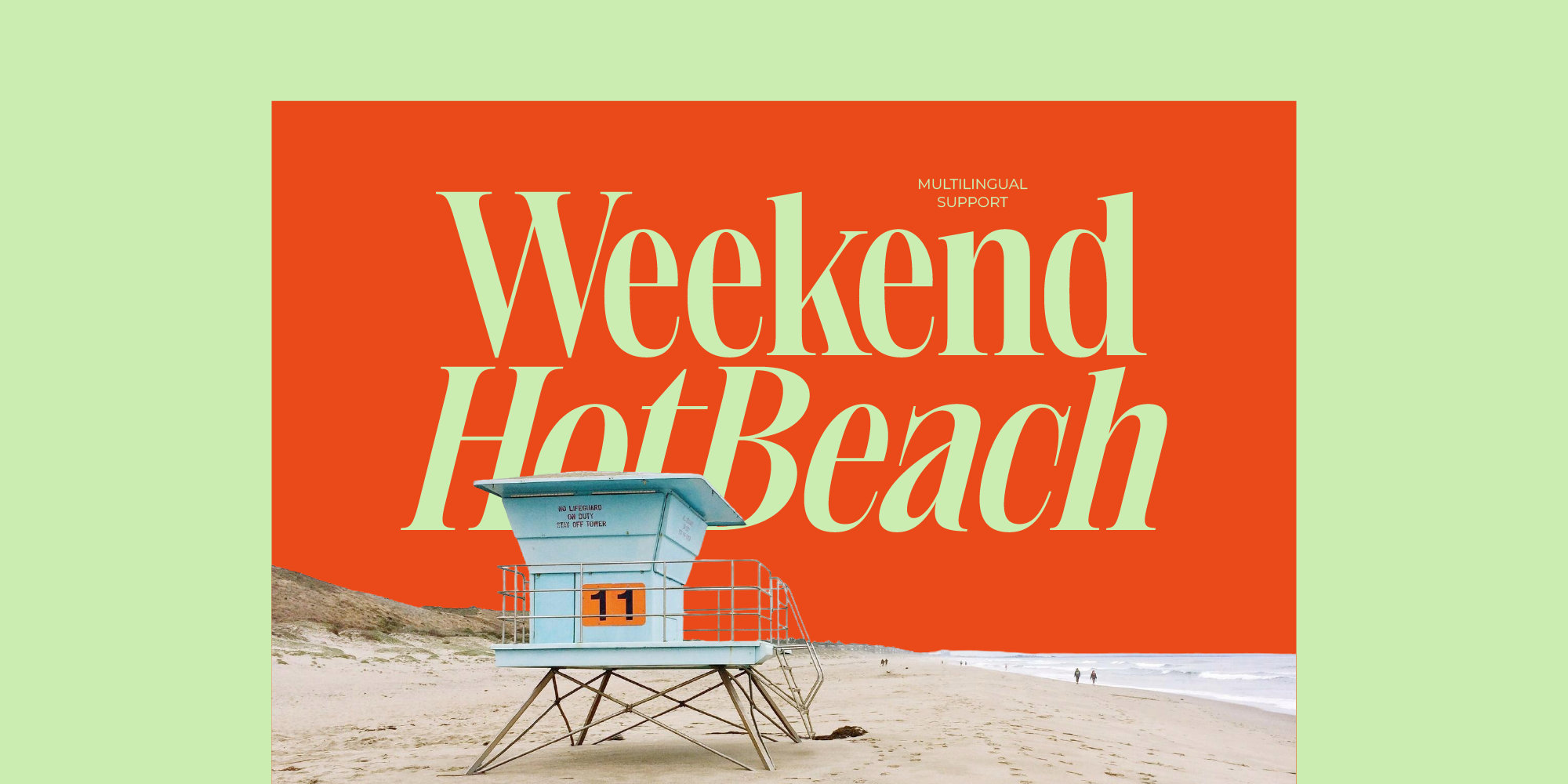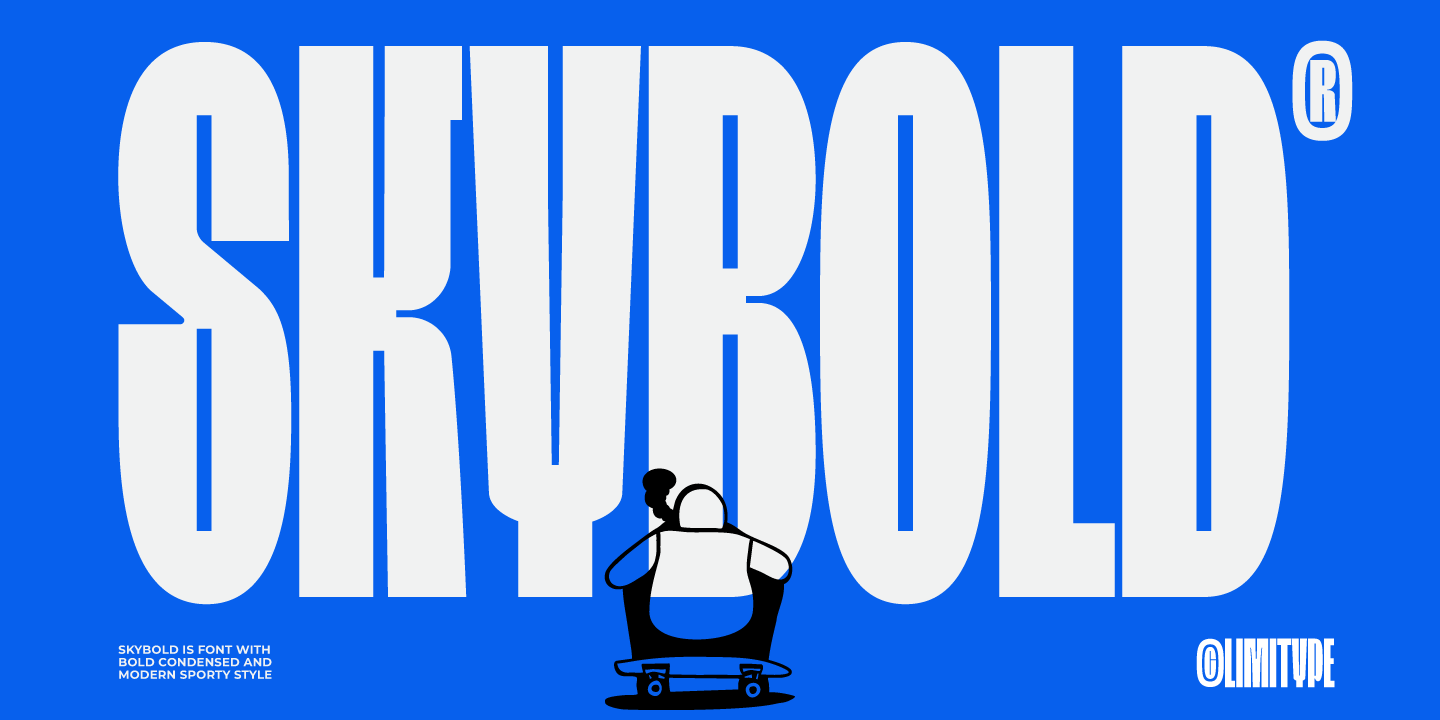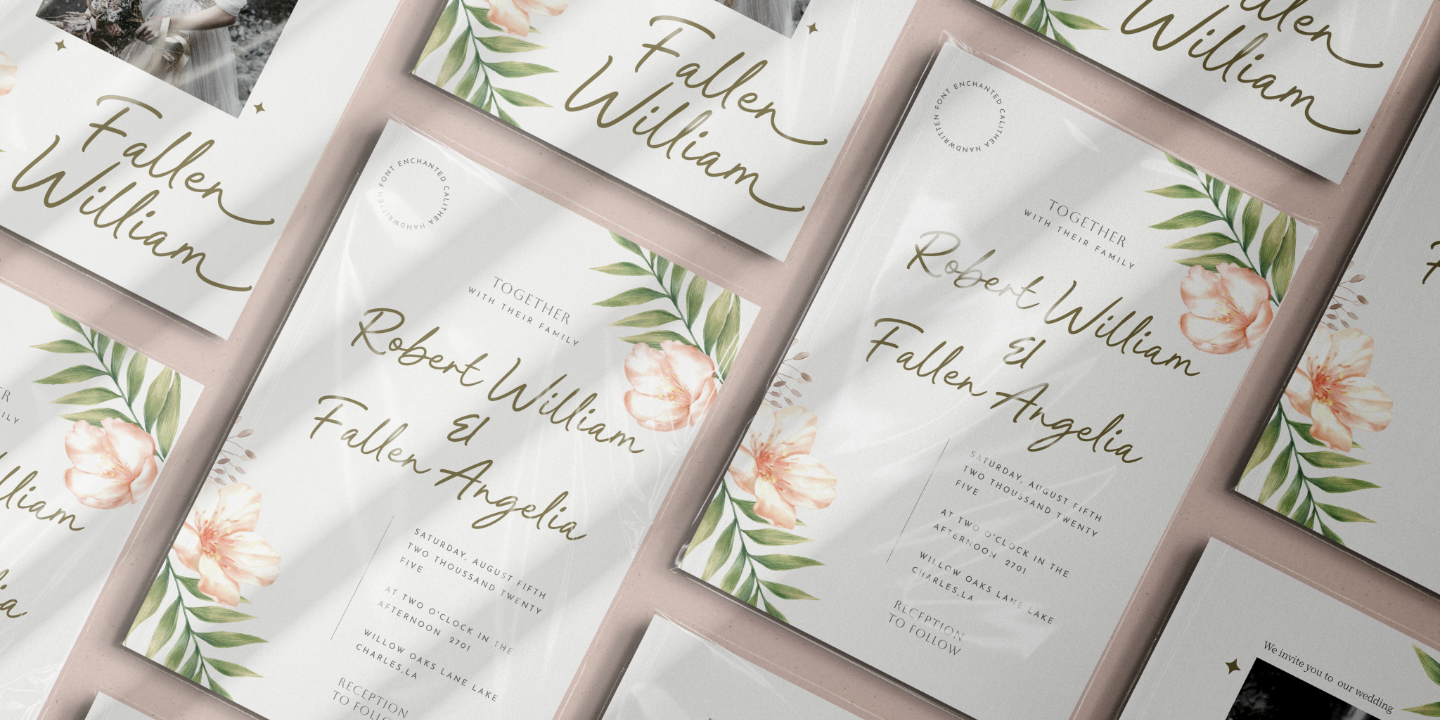
A closer look at the newest and most noteworthy typefaces in our library...
Delivery Feedback is a modern serif font from Timelesstype. This font is suitable for any projects such as: logos, branding projects, homeware designs, product packaging, mugs, quotes, posters, shopping bags, t-shirts, book covers, name card, invitation cards, greeting cards, label, photography, watermark, special events, and all your other luxury and beautiful projects that need a Luxury Serif taste. 2 fonts for $23 | |
This serif font is designed to bring together classic elegance and a relaxed modern feel within a single, harmonious type family. Its refined serif details and well-balanced letter proportions create a sense of elegance and sophistication, while fluid letter rhythms and soft, unrigid details make it feel friendly, casual, and easy to use across various design contexts. With a complete range of widths and slanted styles, this font offers high flexibility for building dynamic visual hierarchies—from sophisticated editorial layouts to modern, approachable branding. Its consistency across both print and digital media makes it an ideal choice for designers who value aesthetics as much as functionality. 7 fonts for $23 | |
Sadelik is a soft and joyful display typeface inspired by the innocence and imagination of childhood. With its curvy and hand-drawn shapes, Sadelik brings a warm, friendly tone to any design it touches — from packaging and branding to children's books, educational materials, and toy labels. The letterforms are roundish, playful, and slightly imperfect — intentionally crafted to evoke a handmade, sincere feeling. Sadelik is the perfect fit for brands and creators seeking a lighthearted, emotional, and human-centered aesthetic. Whether you're creating stickers, cards, book covers, or digital content, this typeface helps your message land with charm and character. 1 font for $35 | |
Skybold condensed bold font are designed for display and design needs that require bold and slim text, such as headlines, posters, logotypes, magazines, and similar media. With its slim, bold, and easy to read form, this font is highly applicable for various media and design styles that require a prominent appearance. 1 font for $25 | |
Enchanted Calithea is an elegant modern handwritten script that captures a graceful balance between softness and sophistication. Designed with smooth flowing strokes, refined curves, and natural handwriting rhythm, this font brings a timeless charm to every design. Featuring beautiful ligatures and carefully crafted alternates, Enchanted Calithea allows your lettering to feel organic, expressive, and effortlessly stylish. Each character connects seamlessly, creating a luxurious handwritten look that feels personal yet polished. Perfect for branding, wedding invitations, logos, social media, packaging, quotes, and editorial designs, Enchanted Calithea adds a touch of enchantment and class to both minimal and decorative projects. Let your words flow beautifully and leave a lasting impression with Enchanted Calithea. 1 font for $20 | |